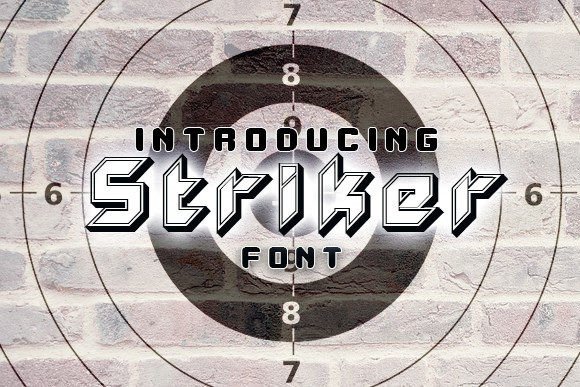
Take your wedding program design to the next level with the captivating Striker Font! Its 3D geometry and sharp lines create a unique and modern aesthetic that will make your program stand out from the crowd. With Striker, you can effortlessly craft an unforgettable impression that reflects the special bond you and your significant other share. The possibilities are endless – from elegant invitations and Save-the-Dates to personalized menus and thank-you notes.
With its bold and futuristic style, Striker is perfect for couples who want to make a statement on their special day. Its versatility extends beyond wedding programs, making it a perfect choice for posters, flyers, and other print materials where attention-grabbing visuals are crucial.
Crafted with precision by the renowned font designer vladimirnikolic, Striker is a testament to his exceptional skill and dedication to creating fonts that inspire and captivate. Its sharp edges and dynamic angles evoke a sense of energy and excitement, making it the perfect choice for capturing the joy and anticipation of your upcoming celebration.
By choosing Striker Font for your wedding program design, you're not just selecting a font – you're investing in a memorable experience that will be cherished for years to come. Let Striker be the brushstroke that paints the perfect picture of your love story on your wedding day.